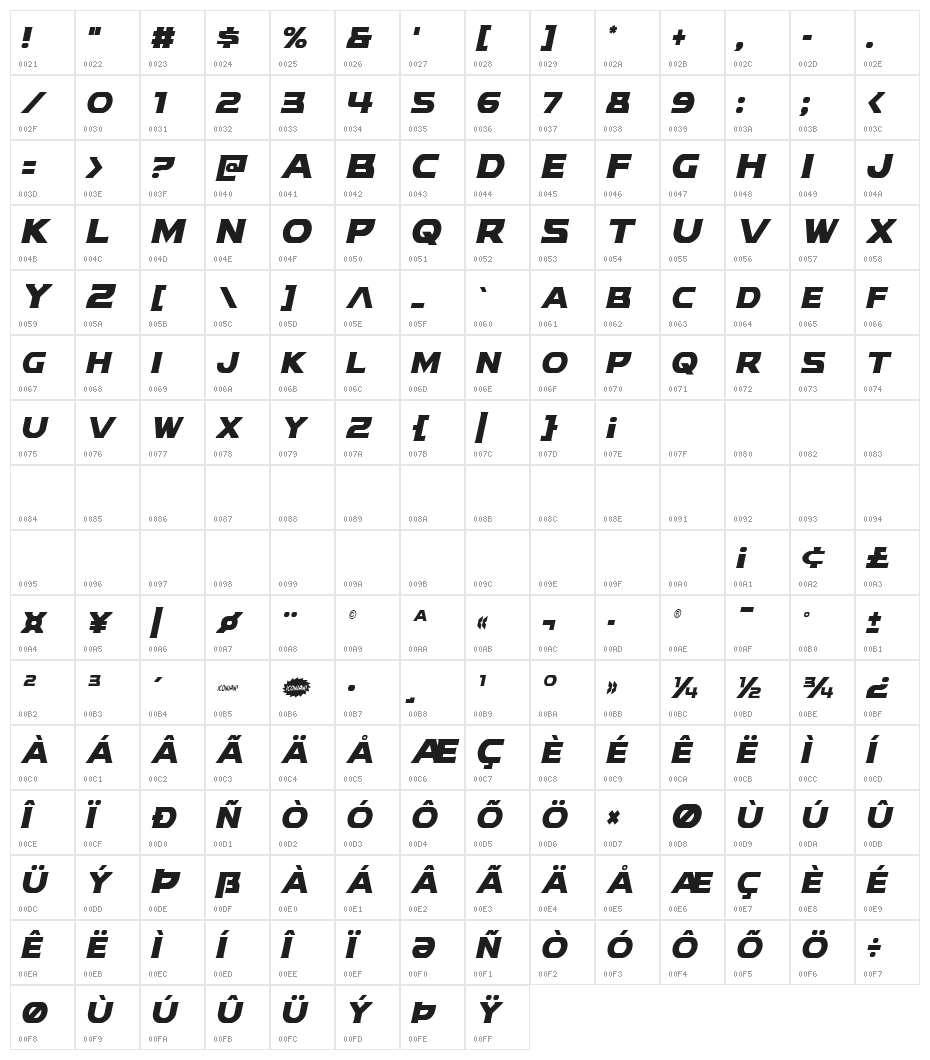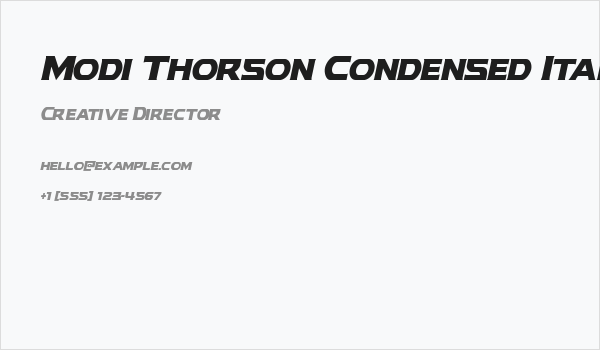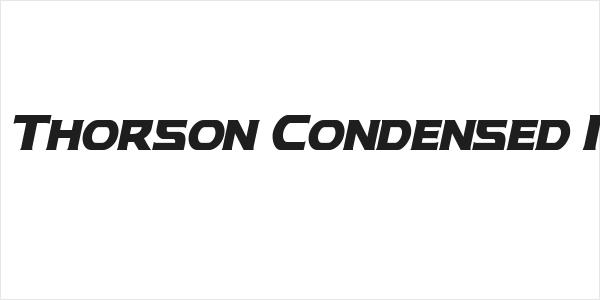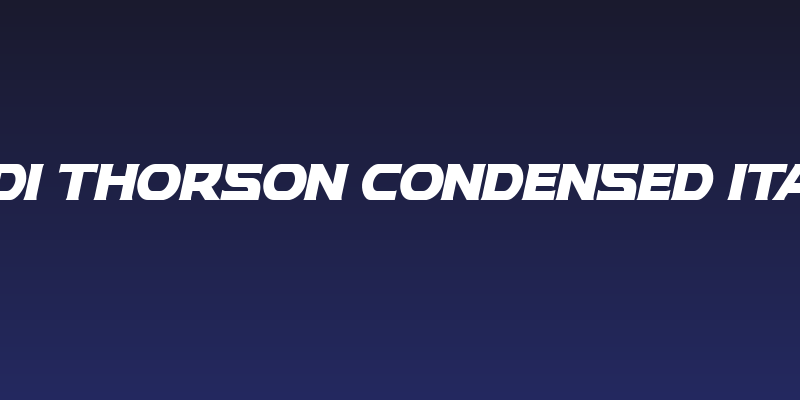
Modi Thorson Condensed Italic Font
Modi Thorson Condensed Italic Description
This font features a bold and dynamic style with a strong italic slant, giving it a sense of motion and energy. The condensed nature of the characters allows for efficient use of space, making it ideal for impactful headlines and titles. The uppercase letters are particularly striking, with sharp angles and clean lines that convey a modern and futuristic aesthetic. The numbers and special characters maintain this cohesive style, ensuring versatility across various design needs. The overall appearance is sleek and professional, suitable for projects requiring a bold statement.
BoldYes
ItalicYes
WidthCondensed
Character SpacingMonospaced
ContrastMedium
Overall StyleModern
Use CaseHeadlines, Logos
Proposed ProjectsIdeal for sports branding, dynamic posters, tech-related designs, and modern advertising campaigns.